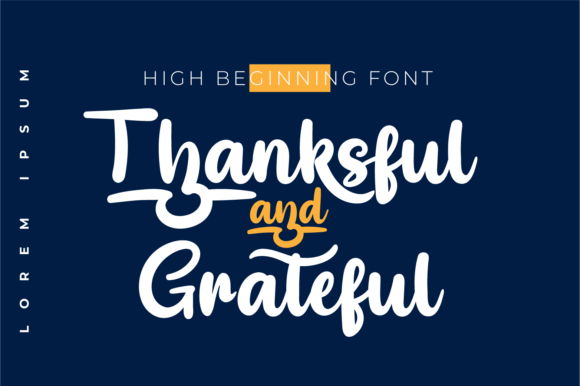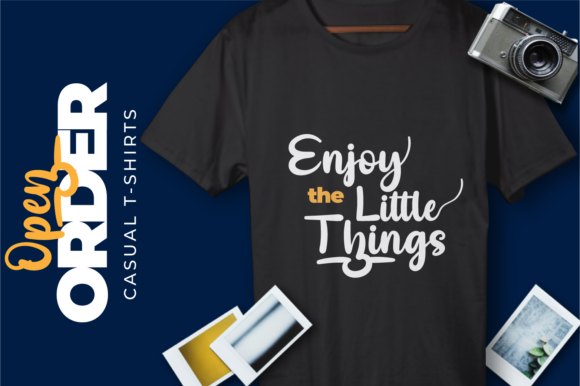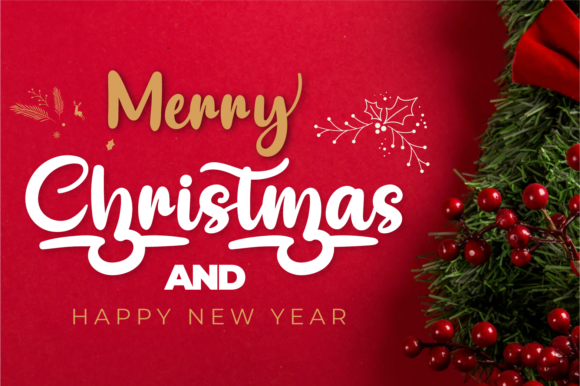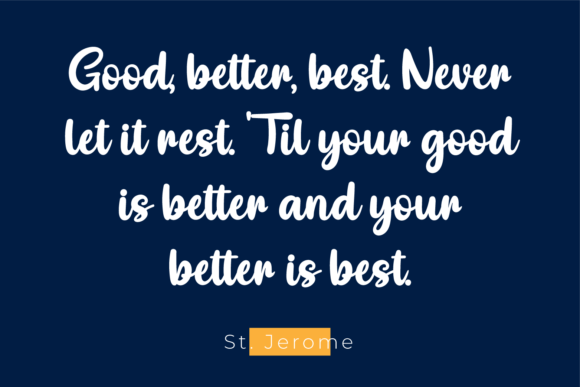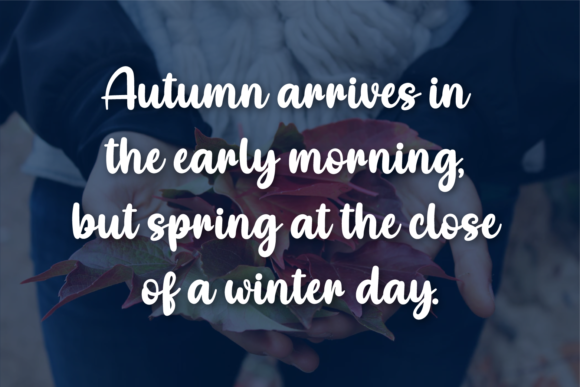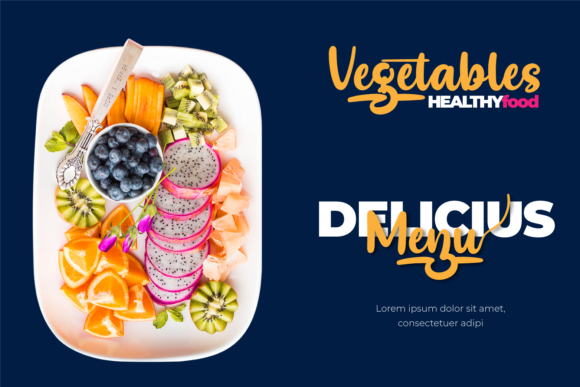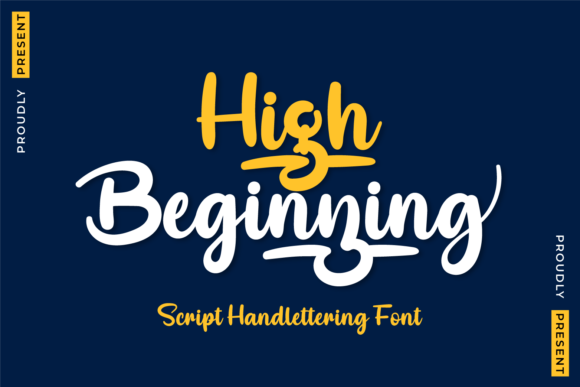
The Quest for the Perfect Font: Discovering High Beginning
I still remember the frustration of scrolling through font after font, searching for the perfect one to bring my design project to life. It was for a wedding invitation, and I wanted something that would capture the elegance and playfulness of the couple’s special day. As a designer, I’ve been there many times – stuck in a font-choosing loop, unsure which one will elevate my design from good to great. That’s when I stumbled upon High Beginning, a modern and stylish handwritten font that has since become a staple in my design toolkit.
What Makes High Beginning Special?
High Beginning is more than just a pretty font – it’s a versatile tool that can elevate a wide range of designs. With its cute characters and amazing ligatures, this font is perfect for:
• Wedding invitations and save-the-date cards
• Quote designs and inspirational posters
• Social media posts and advertisements
• Trademarks and branding materials
• Food and beverage promotion banners and menus
So, what do I love about High Beginning? Here are a few things that make it stand out:
• ✨ Unique and stylish handwritten design
• ✅ Extensive ligatures and OpenType features
• ✅ Works beautifully in both digital and print formats
• ✅ Easy to read and understand, even at smaller sizes
And, like any font, it’s not without its quirks:
• ⚠️ Some characters may require manual kerning for optimal spacing
• 🤔 Limited availability of certain language scripts
The Story Behind High Beginning
High Beginning was designed with the intention of creating a modern, yet personal and approachable font. The designer aimed to craft a font that would be versatile and easy to read, while still conveying a sense of elegance and sophistication. Although the designer’s background and inspiration are shrouded in mystery, it’s clear that High Beginning was created with love and attention to detail.
What makes High Beginning unique? High Beginning features a modern and stylish handwritten design, extensive ligatures, and OpenType features that set it apart from other fonts.
Is High Beginning suitable for body text? While High Beginning is primarily designed for display purposes, it can be used for body text in certain contexts, such as in smaller sizes or with careful typography.